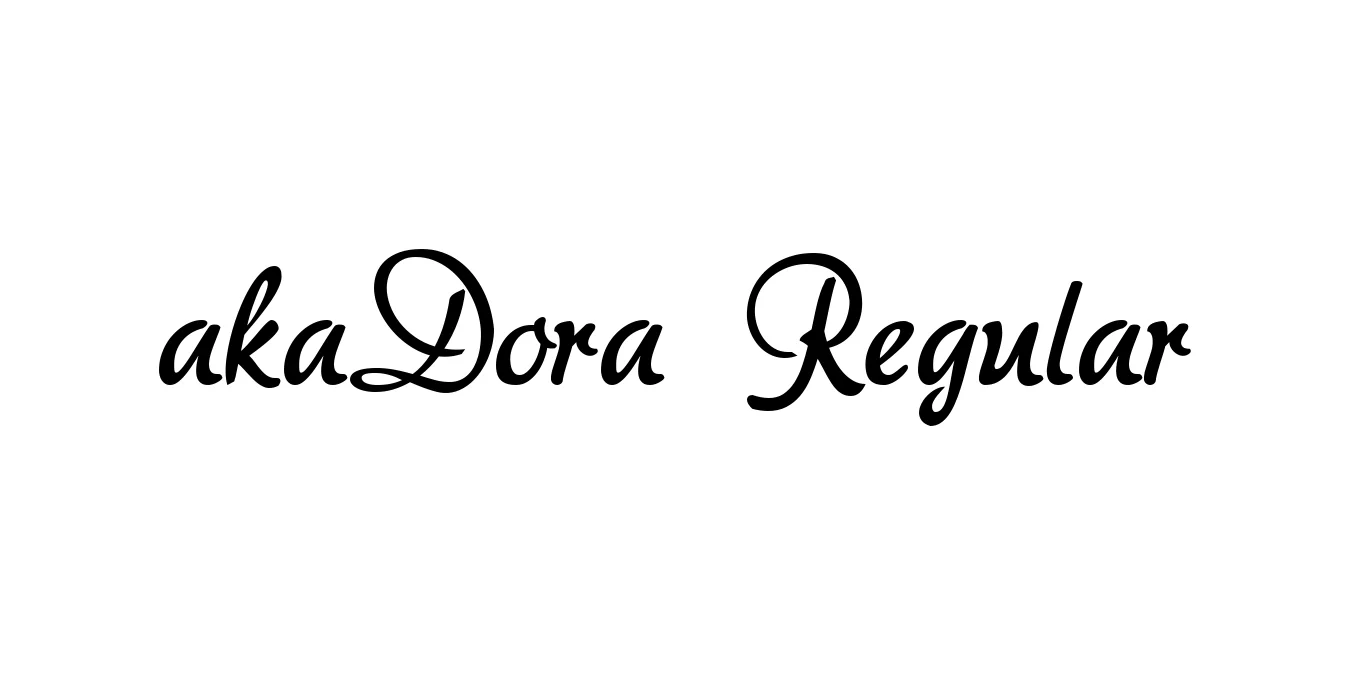
akaDora Regular
Designed by James Fordyce
| Font Name | akaDora |
| Designer | James Fordyce |
| Similar Fonts | Zapf Chancery, Brush Script, Bradley Hand |
akaDora Regular is a popular script font developed by the designer James Fordyce under his akaType foundry label. It features a friendly, handwritten aesthetic characterized by its flowing curves and an informal, casual style that mimics natural penmanship. Since its release, it has become a favorite among digital scrap-bookers and DIY enthusiasts for its approachable and humanistic design, bridging the gap between artistic calligraphy and casual lettering.
Known for its hand-drawn feel, the font excels in projects where a personal touch is essential. It is frequently utilized in craft-related designs, greeting cards, and whimsical branding projects. The balance between artistic flair and legibility ensures that it remains a versatile staple in the toolkit of graphic designers looking for a playful yet clear script typeface that feels authentic and inviting.
akaDora Regular Best Uses
Perfect for adding a personal, handwritten touch to invitations and holiday cards.
Ideal for creating engaging, informal quote graphics and visual storytelling.
Great for vinyl cutting projects, scrapbooking, and DIY label designs.
Suitable for boutique logos and small business identity looking for a personal feel.